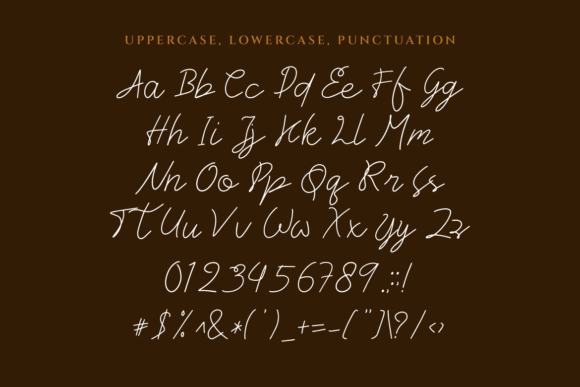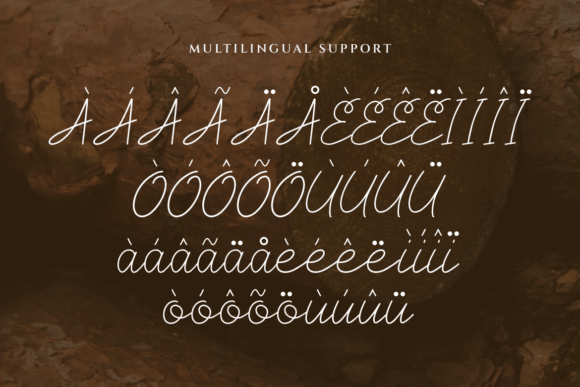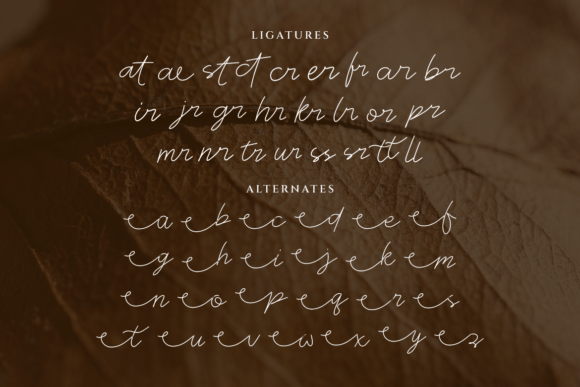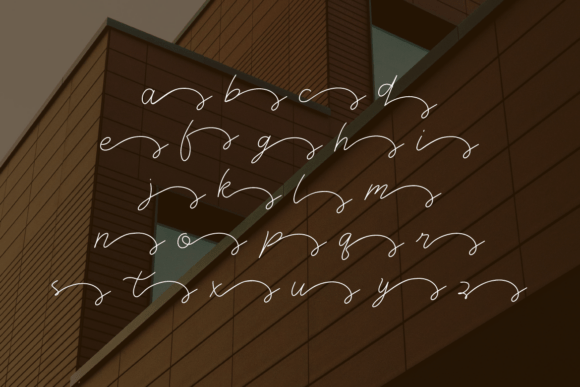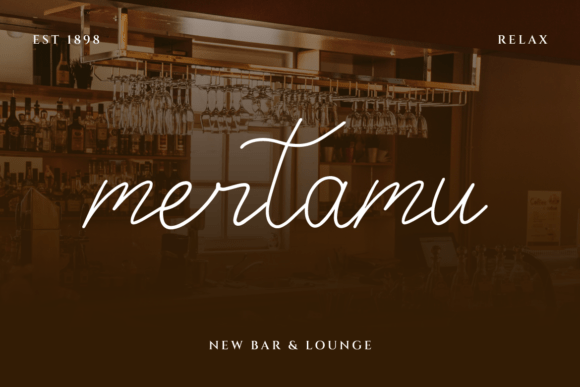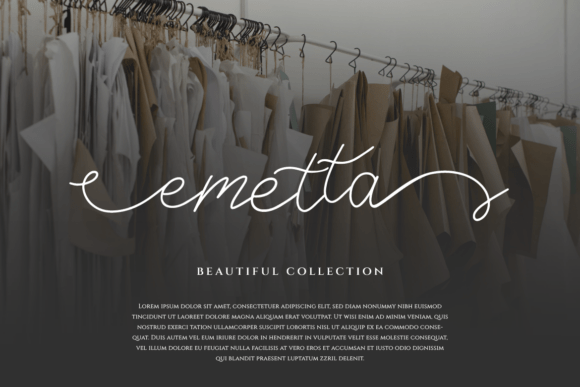
Giselle Font: Elevate Your Design with Elegance and Sophistication
In the world of typography, few fonts capture the essence of elegance and sophistication as beautifully as the Giselle Font. This stunning handwritten script font is a perfect blend of natural curves and modern style, making it an ideal choice for designers and crafters looking to add a touch of refinement to their projects. In this article, we’ll explore the unique features of the Giselle Font, its uses, and why it’s a must-have for anyone looking to elevate their design game.
The Unique Features of Giselle Font
Giselle Font is a masterpiece of typographic design, boasting flowing strokes and smooth connections that create a sense of fluidity and movement. Its natural curves and loops evoke a sense of handwriting, giving it an authentic and personal touch. At the same time, its modern style ensures that it remains stylish and contemporary, perfect for a wide range of design applications.
One of the standout features of Giselle Font is its exceptional legibility. Even at smaller sizes, the font remains clear and easy to read, making it perfect for body text, captions, and other applications where readability is crucial. Additionally, the font’s unique character set includes a range of ligatures, swashes, and alternate characters, allowing designers to add an extra layer of creativity and personality to their work.
Uses of Giselle Font
So, what can you use Giselle Font for? The answer is almost anything! Its versatility and elegance make it perfect for a wide range of design projects, including:
- Branding: Use Giselle Font to create stunning logos, business cards, and letterheads that reflect your brand’s personality and style.
- Wedding Invitations: Add a touch of romance and sophistication to your wedding invitations, save-the-dates, and other stationery with Giselle Font.
- Social Media Graphics: Elevate your social media presence with eye-catching graphics, quotes, and posts that showcase your brand’s unique voice and style.
- Packaging: Use Giselle Font to create beautiful labels, tags, and packaging that stand out on store shelves and online.
- Creative Projects: Whether you’re working on a personal project or a client’s, Giselle Font is the perfect choice for adding a touch of elegance and sophistication to your design.
Why Choose Giselle Font?
With so many fonts available, why choose Giselle Font? Here are just a few reasons why designers and crafters love this beautiful script font:
- Unique and Authentic: Giselle Font is a one-of-a-kind font that adds a personal touch to any design project.
- Elegant and Sophisticated: Its flowing strokes and smooth connections create a sense of elegance and refinement that’s hard to find in other fonts.
- Versatile: Use Giselle Font for a wide range of design projects, from branding and wedding invitations to social media graphics and packaging.
- Easy to Read: Despite its elegant appearance, Giselle Font remains clear and easy to read, even at smaller sizes.
In conclusion, Giselle Font is a stunning handwritten script font that offers a unique blend of natural curves and modern style. Its elegance, sophistication, and versatility make it perfect for a wide range of design projects, from branding and wedding invitations to social media graphics and packaging. Whether you’re a designer, crafter, or DIY enthusiast, Giselle Font is a must-have for anyone looking to elevate their design game and add a touch of refinement to their work.